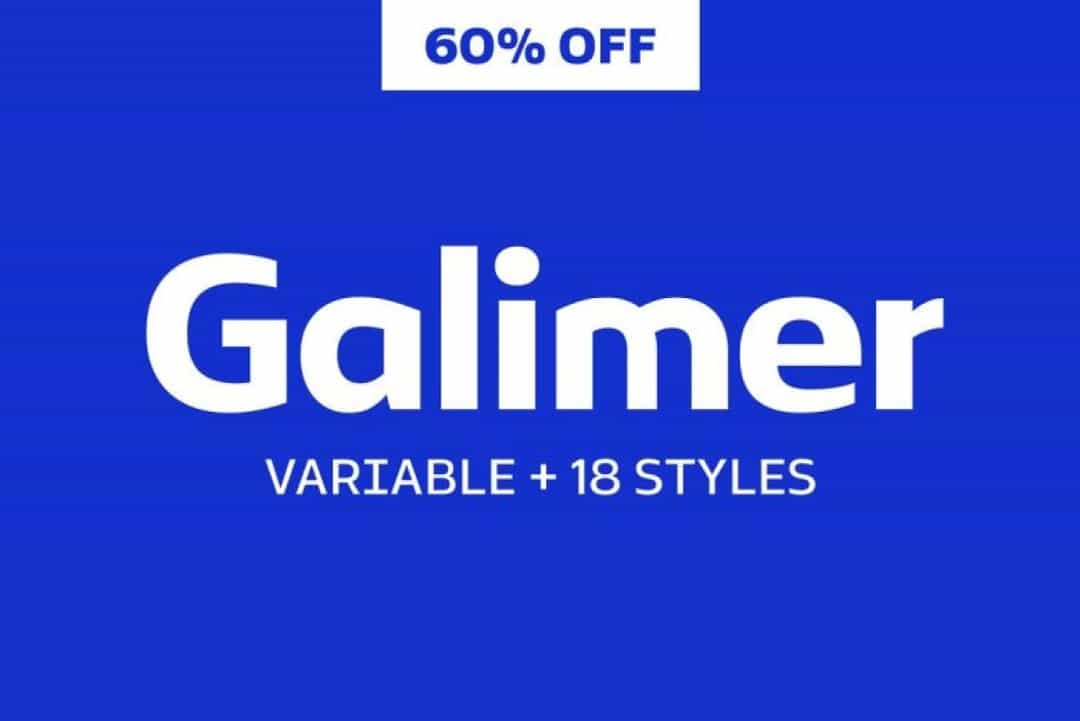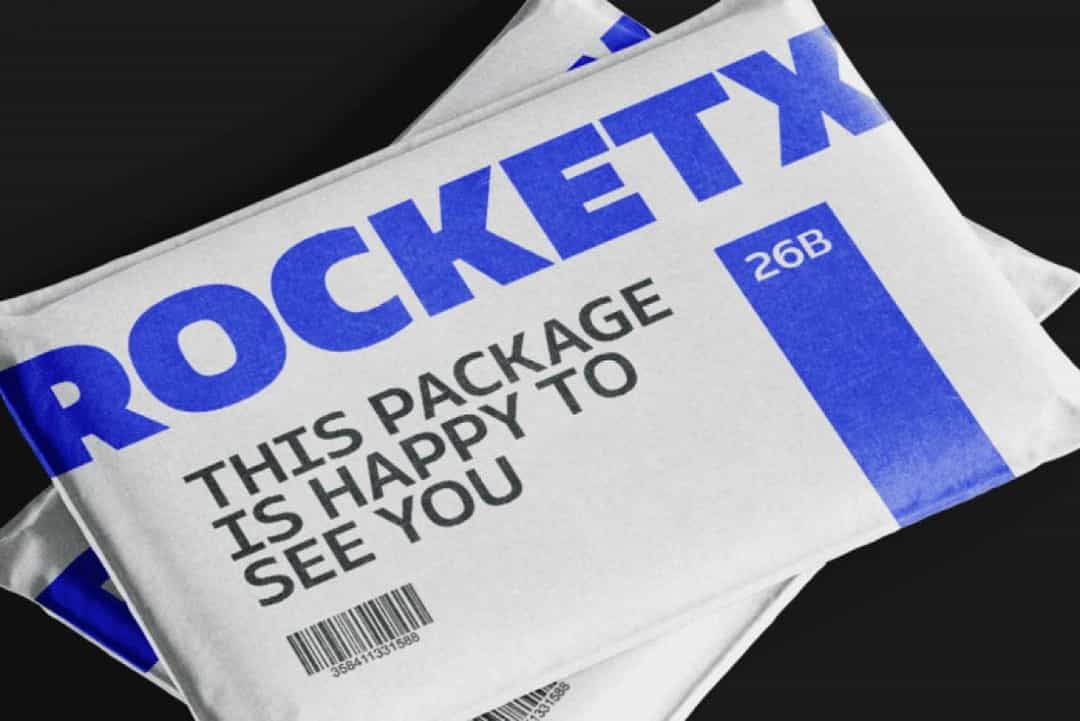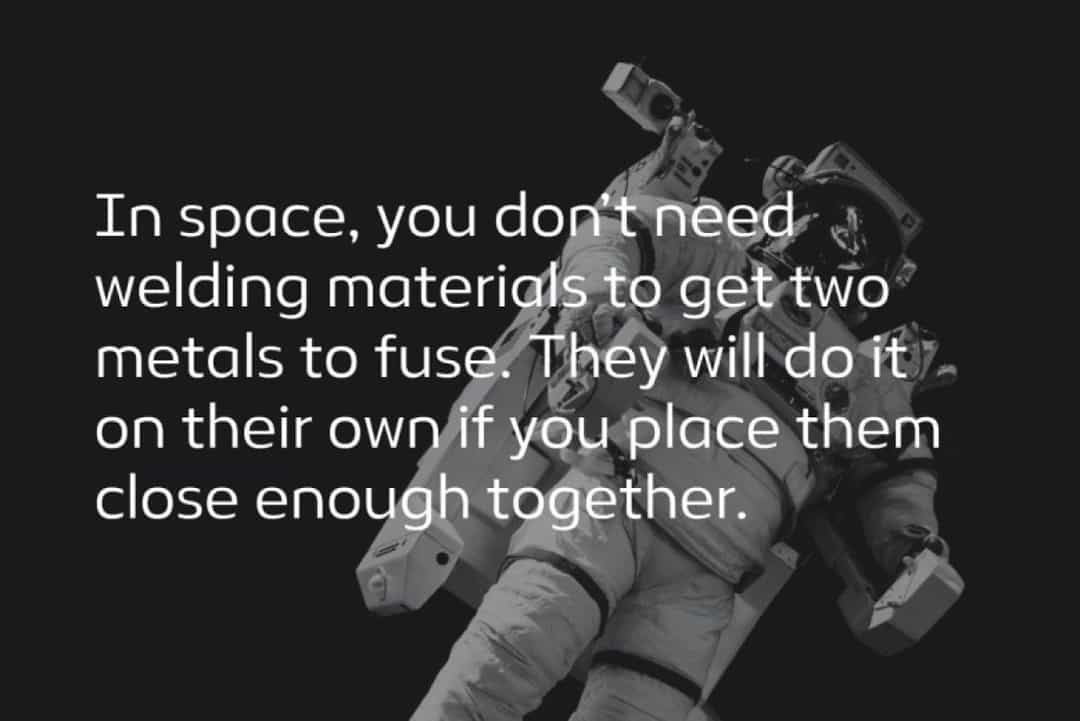
Galimer Font
Galimer is a humanist-inspired variable sans serif font family that offers 18 styles with 9 weights each, along with its equivalent italic versions. Furthermore, two axes of variation both in italic and weight can be utilized. Each weight supports over 80 languages worldwide.